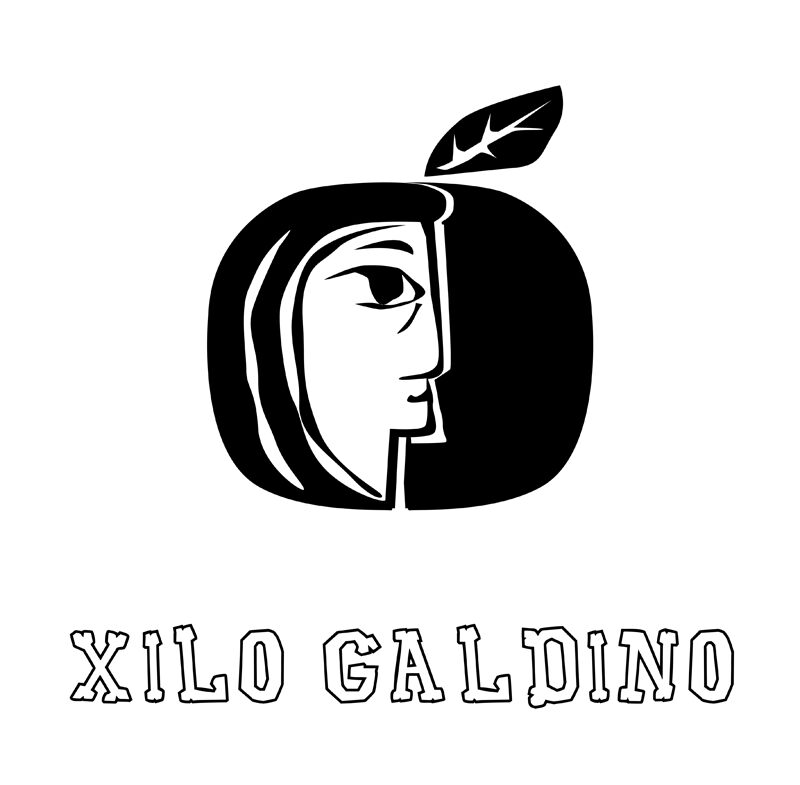
Xilo Galdino Italic
Xilo Galdino Italic font is a free warped display font designed by Galdino Otten Fonts and an unusual choice for creative designs. A quick look at the letters of this typeface will immediately grab your attention and impel you to explore it in more detail. Multiple thicknesses are used in combination with rounded holes and tilted lines.
Xilo Galdino would be a neat font for branding, posters, book or CD covers, flyers, advertisements, packaging, headings, magazine layouts, or webpages. Its strong visual appearance could also find use on T-shirts or other wearables for an unforgettable artistic style.